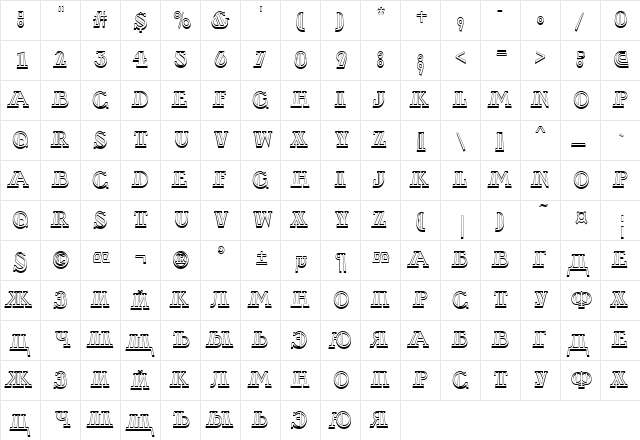
a_DexterOtlDecorDv3D Regular
Design Context for a_DexterOtlDecorDv3D Typeface
a_DexterOtlDecorDv3D is a composed and adaptable typeface that performs quietly and consistently across a wide range of design contexts.